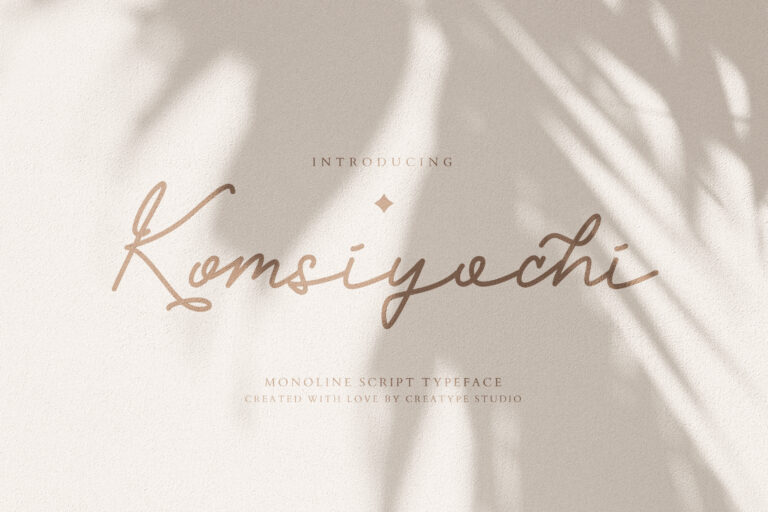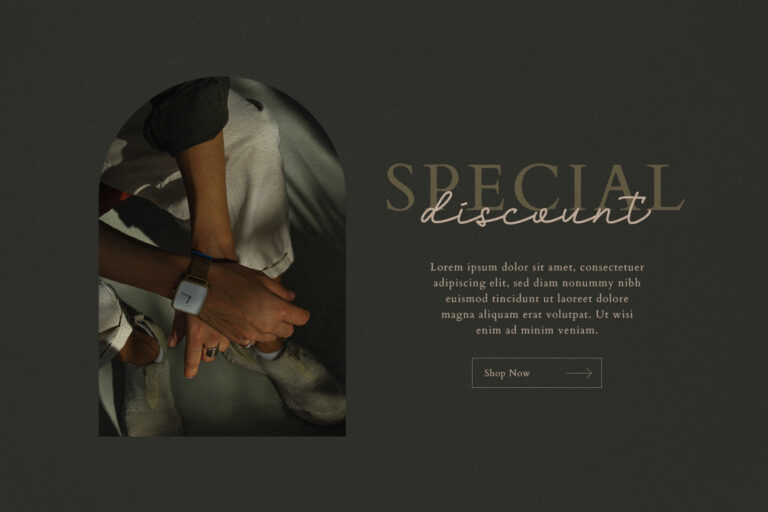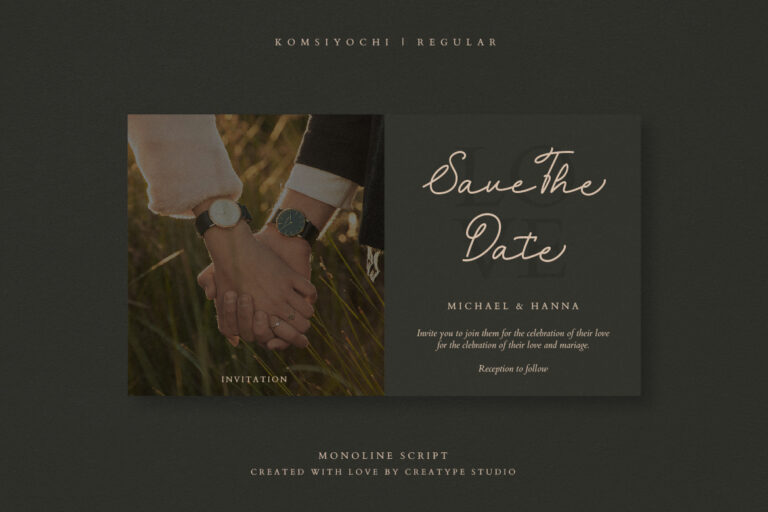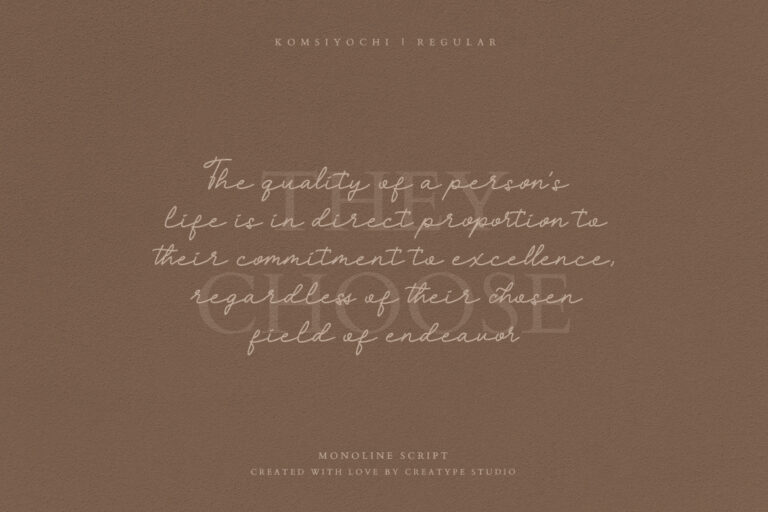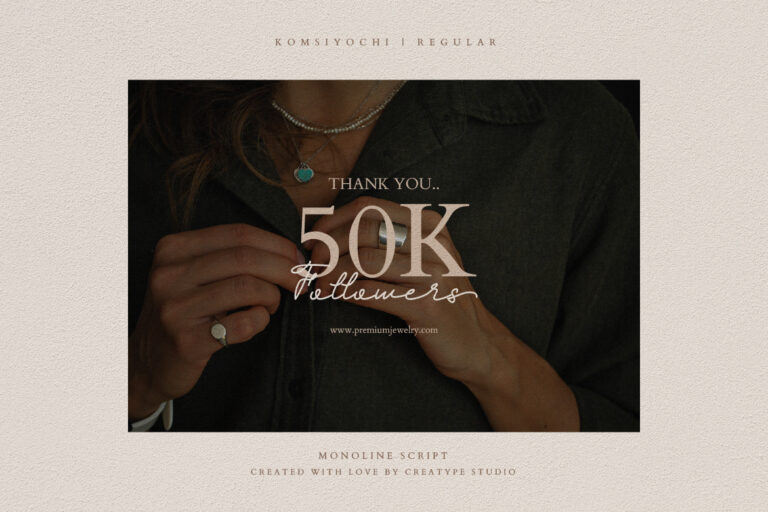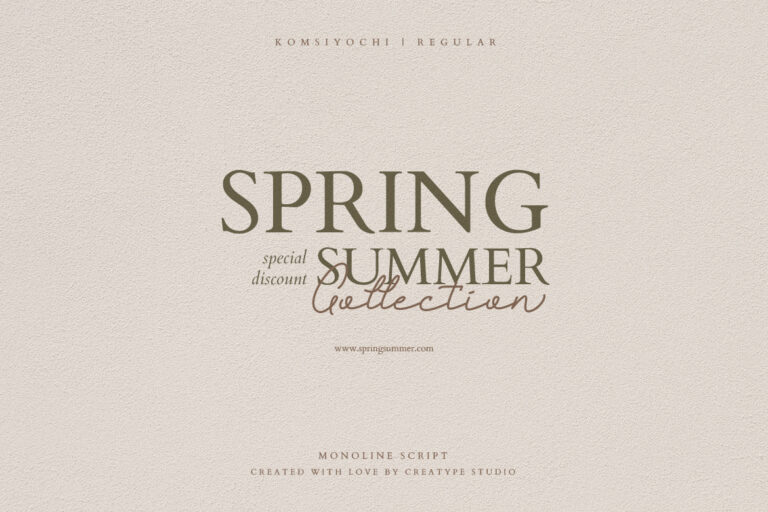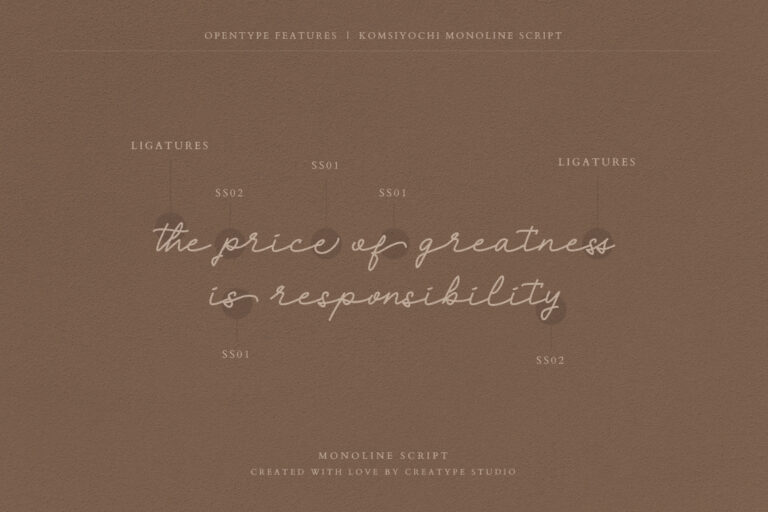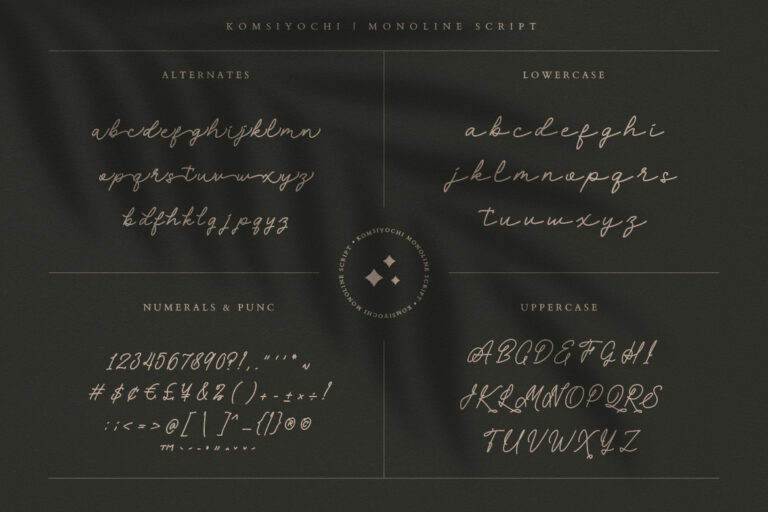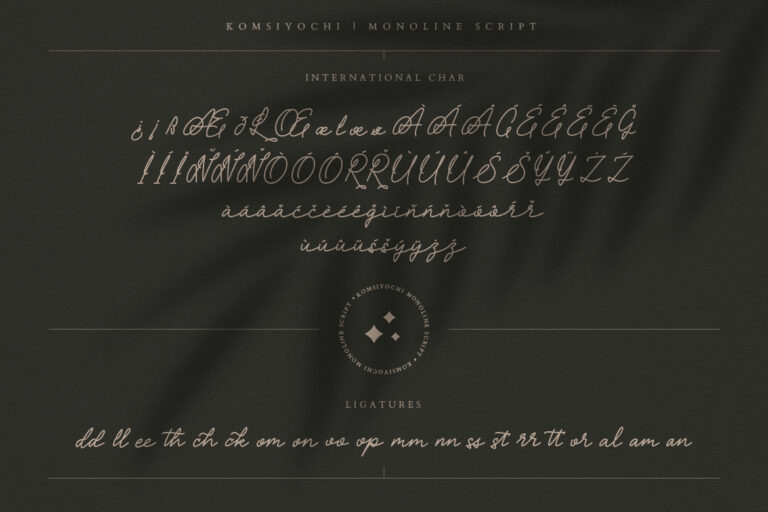
Komsiyochi Monoline Script
Komsiyochi is a monoline script typeface that looks very natural, smooth, and a bit bold. Komsiyochi is made with love, it can be seen from the shape of the writing which looks natural, smooth, and a bit bold.
Komsiyochi Monoline Script is perfect for branding projects, logo, wedding designs, social media posts, advertisements, product packaging, product designs, label, photography, watermark, invitation, stationery and any projects that need handwriting taste.
- Fonts include multilingual support for; Afrikaans, Albanian, Czech, Danish, Dutch, English, Estonian, Finnish, French, German, Hungarian, Italian, Latvian, Lithuanian, Norwegian, Polish, Portuguese, Slovak, Slovenian, Spanish, Swedish.